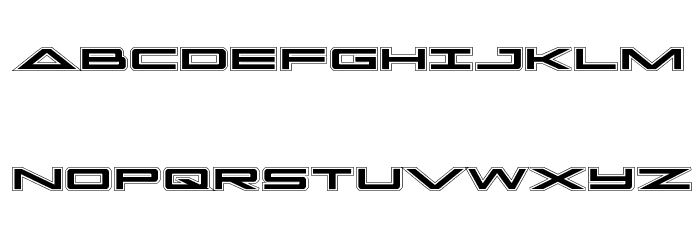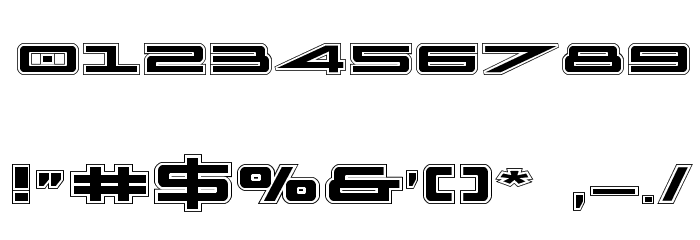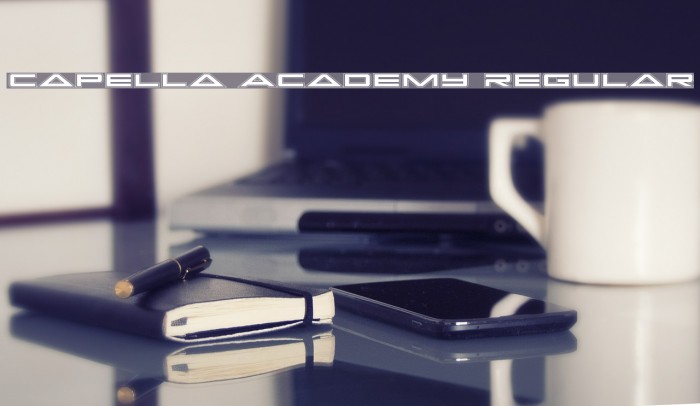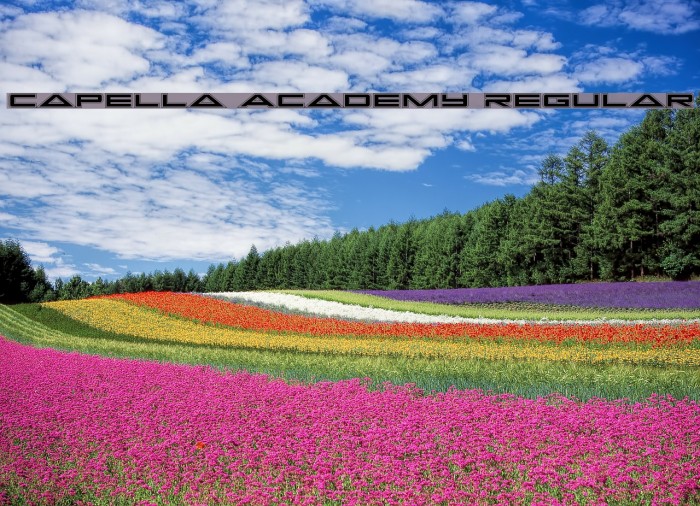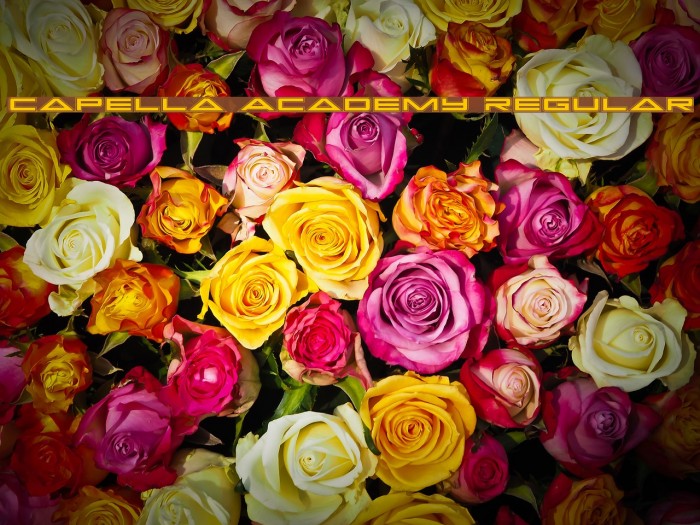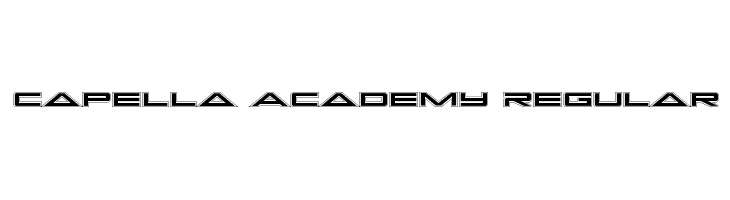
Capella Academy Regular Font
This font features a futuristic and geometric design, characterized by sharp angles and a bold presence. The uppercase letters are distinct with a strong, angular form that suggests a sense of modernity and innovation. The lowercase letters maintain the same angular style, providing a cohesive look across different text cases. The numerals are equally bold and angular, ensuring consistency throughout. Special characters are designed to match the overall aesthetic, with a focus on symmetry and balance. This font is ideal for projects that require a modern and edgy appearance, such as technology branding, sci-fi themed designs, or innovative product packaging.
A futuristic, angular font with a bold and modern design.
- Proposed Projects: Ideal for technology branding, sci-fi themed designs, and innovative product packaging.